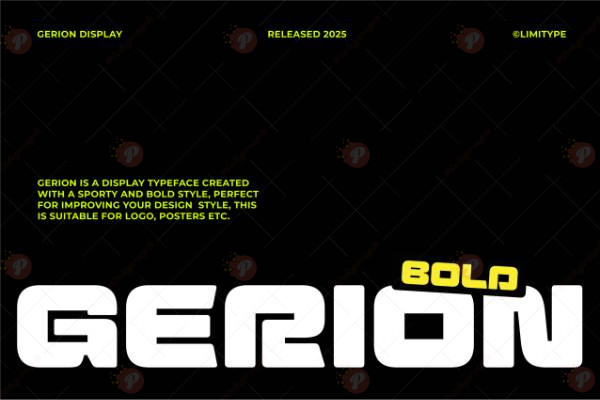
The Gerion – Bold Free Font is a modern, strong, and versatile typeface designed to make your text stand out in any project. Its bold weight and clean design make it ideal for headlines, posters, branding, logos, social media graphics, and digital content.
With a professional and contemporary aesthetic, Gerion Free Font works perfectly for print and digital projects, giving your designs a powerful and confident look.
Font Style: Bold / Modern / Display Typeface
Perfect For: Headlines, branding, logos, posters, social media graphics, digital content